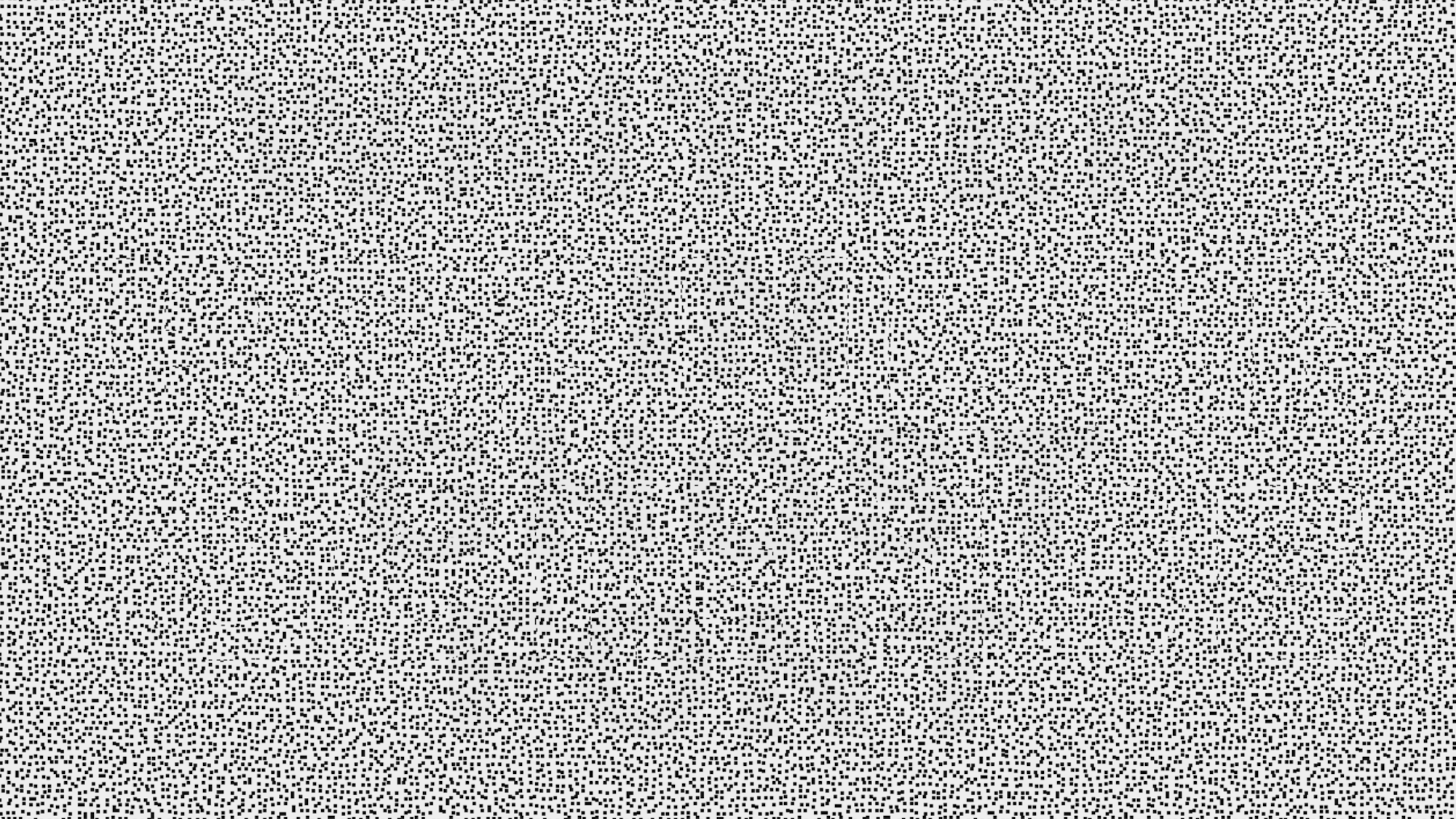
Despite increasing pushback from the public and some lawmakers, there still isn’t much preventing tech companies from training their generative artificial intelligence programs on internet content without the author’s consent. So until meaningful legislation and oversight is introduced, people are largely on their own when it comes to guarding original their online material.
While designer Eric Lu’s Ghost Font isn’t necessarily the silver bullet needed to stop AI from completely devouring the internet, it’s still an ingenious proof-of-concept experiment that highlights human creativity. It also shows just how far AI has to go when it comes to parsing concepts like optical illusions.
Ghost Font’s underlying mechanisms are deceptively simple. Text is entered by a user and overlaid within hundreds of moving dots in a short video animation. The dots composing the words move up the screen while the rest of the pinpoints move downward, generating a visual opposition that the human mind can detect and discern. Pausing the video creates a stationary picture that allows the words to disappear amid the overall clutter. AI (or the human eye, for that matter) can’t decipher the message in the still image, but that’s also where people get the upper hand.
While the human brain interprets motion as a fluid pattern, multimodal AI still examines videos by their individual frames. Think of it like a flipbook.Humans will see the cumulative animation while running through the pages, but AI is still forced to look at the image on each individual page. As an added protection, Ghost Font files also include the static decoy message “written in Ghost Font,” which further confuses AI by making it seem like that’s the only actual text to scan.
Lu claims to have tested the program using Anthropic’s Claude Fable and OpenAI’s GPT-5.6 Sol Ultra, both of which failed to find the real text. Further trials conducted by Creative Bloq also appeared to best AI.
By Lu’s own admission, Ghost Font isn’t a cure-all to ongoing AI issues. It’s limited to extremely short messages, and may become obsolete if generative AI develops the ability to examine videos as optical flows instead of individual frames. It also only takes a few seconds of staring at a dizzying Ghost Font video to realize it’s not the easiest on the eyes, and probably is useless for anyone with visual disabilities. Regardless, it’s still a fun and free way to celebrate human ingenuity—and AI’s deficiencies.